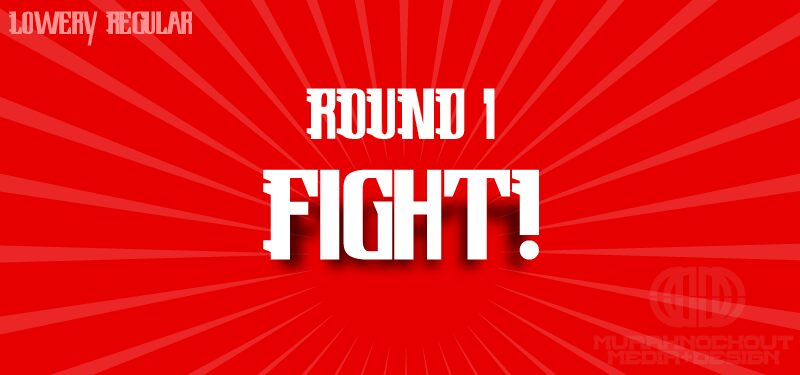
Lowery Regular
A font equally inspired by my friends obsession with video games and my love of fighting games growing up. It was made with video games in mind, but I think it works well for various genres from Fantasy to Fighting to Hack n' Slash.